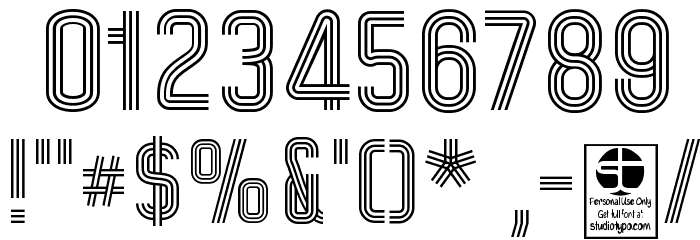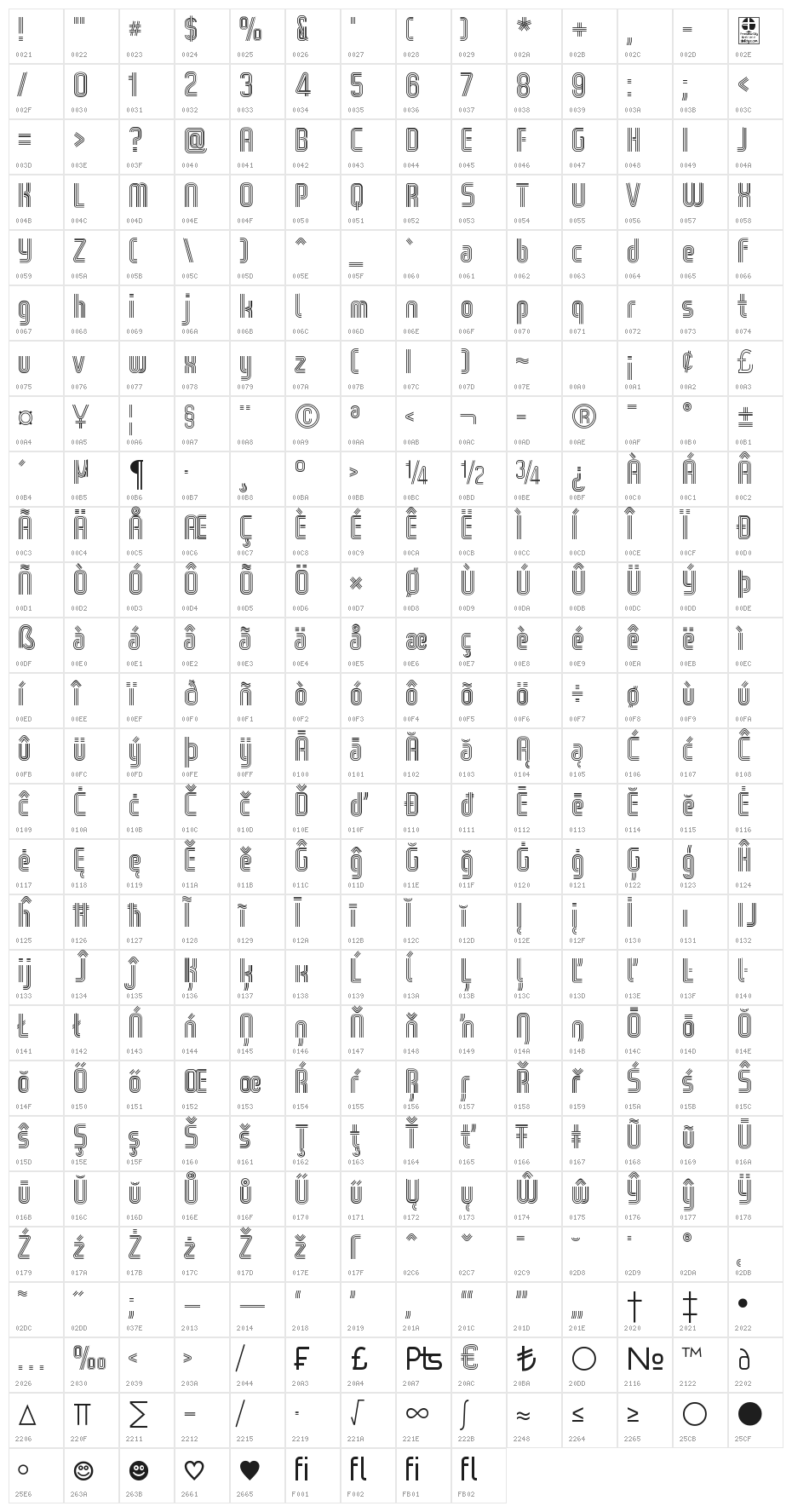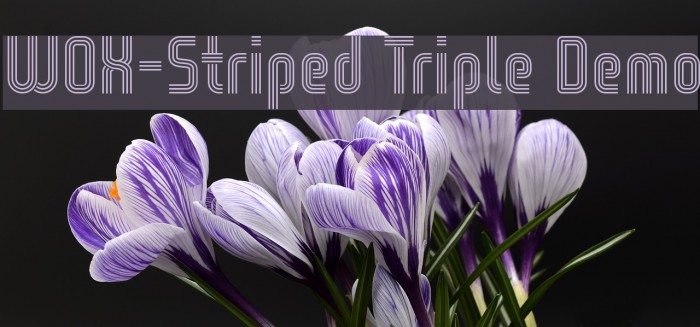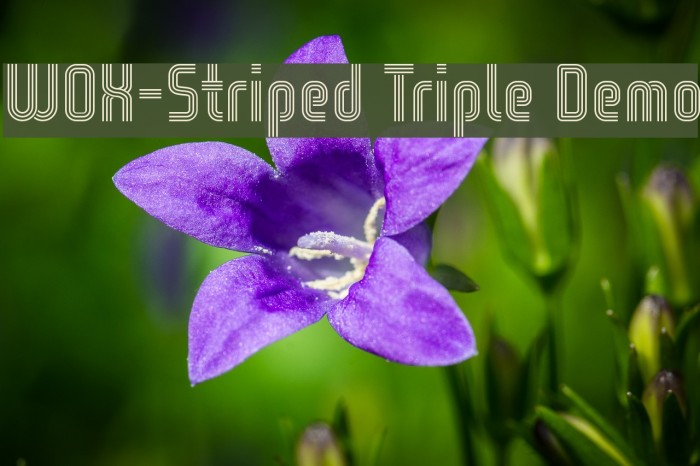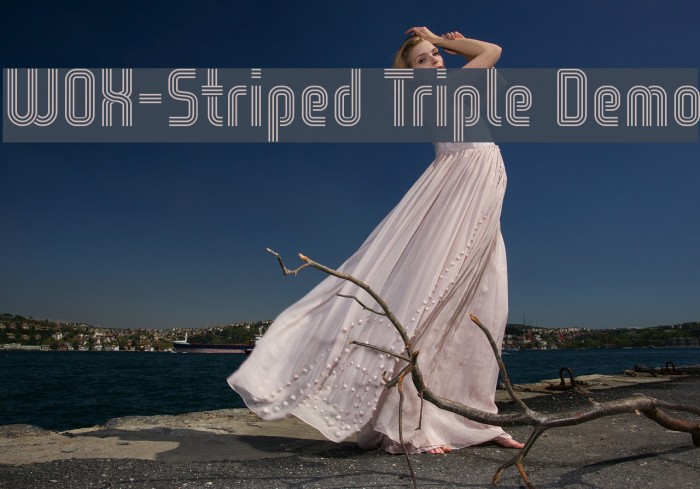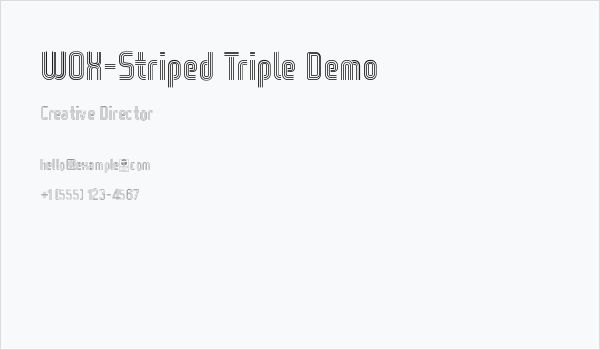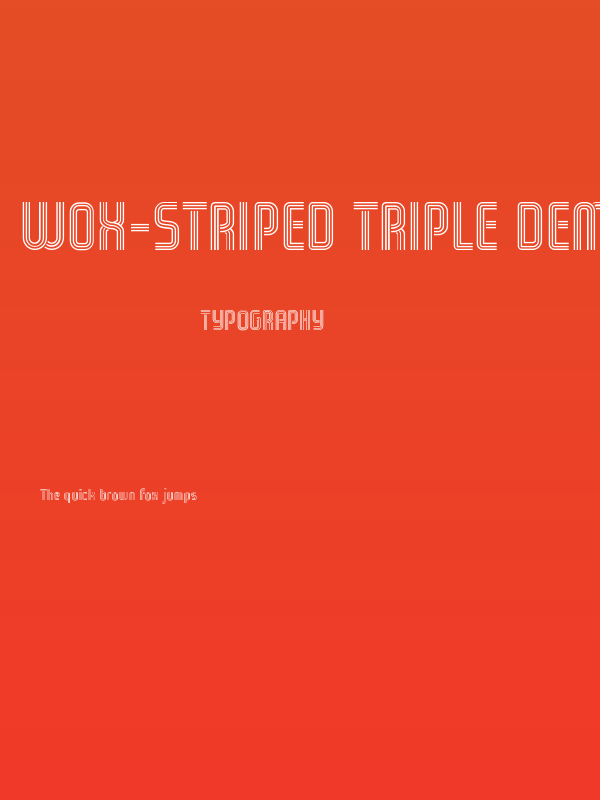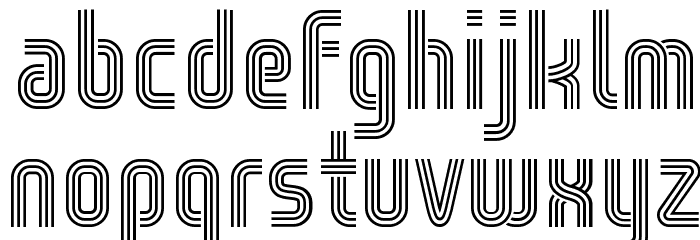
WOX-Striped Triple Demo Font
WOX-Striped Triple Demo Description
This font features a unique triple-striped design, giving each character a bold and dynamic appearance. The uppercase and lowercase letters maintain a consistent width, creating a cohesive look across the alphabet. The numerals and special characters follow the same striped pattern, ensuring uniformity throughout. The font's geometric structure and clean lines make it ideal for modern and eye-catching designs. Its distinct style is both decorative and functional, suitable for a variety of creative projects.
| Proposed Projects | Ideal for branding, posters, headlines, and any design requiring a striking and modern aesthetic. |